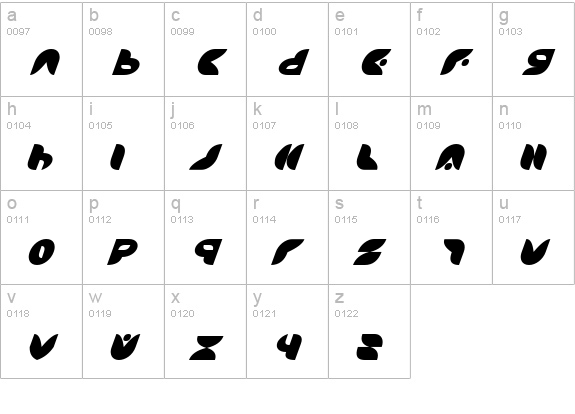
Puff Angel Italic is a distinctive, italic variant in the Puff typeface family \xE2\x80\x94 well suited to design and typography projects.
Puff Angel Italic font is a whimsical and elegant typeface that exudes charm and grace. The delicate curves and flowing lines of this font give it a heavenly aura, perfect for adding a touch of magic to your designs. Whether you're creating invitations, greeting cards, or branding materials, Puff Angel Italic will elevate your projects to new heights. And the best part? Puff Angel Italic font is completely free to download at FontsMarket.com. Now you can bring a touch of angelic beauty to your creations without breaking the bank. Don't miss out on this opportunity to add a touch of ethereal elegance to your designs with Puff Angel Italic font. Download it for free today and let your creativity soar.